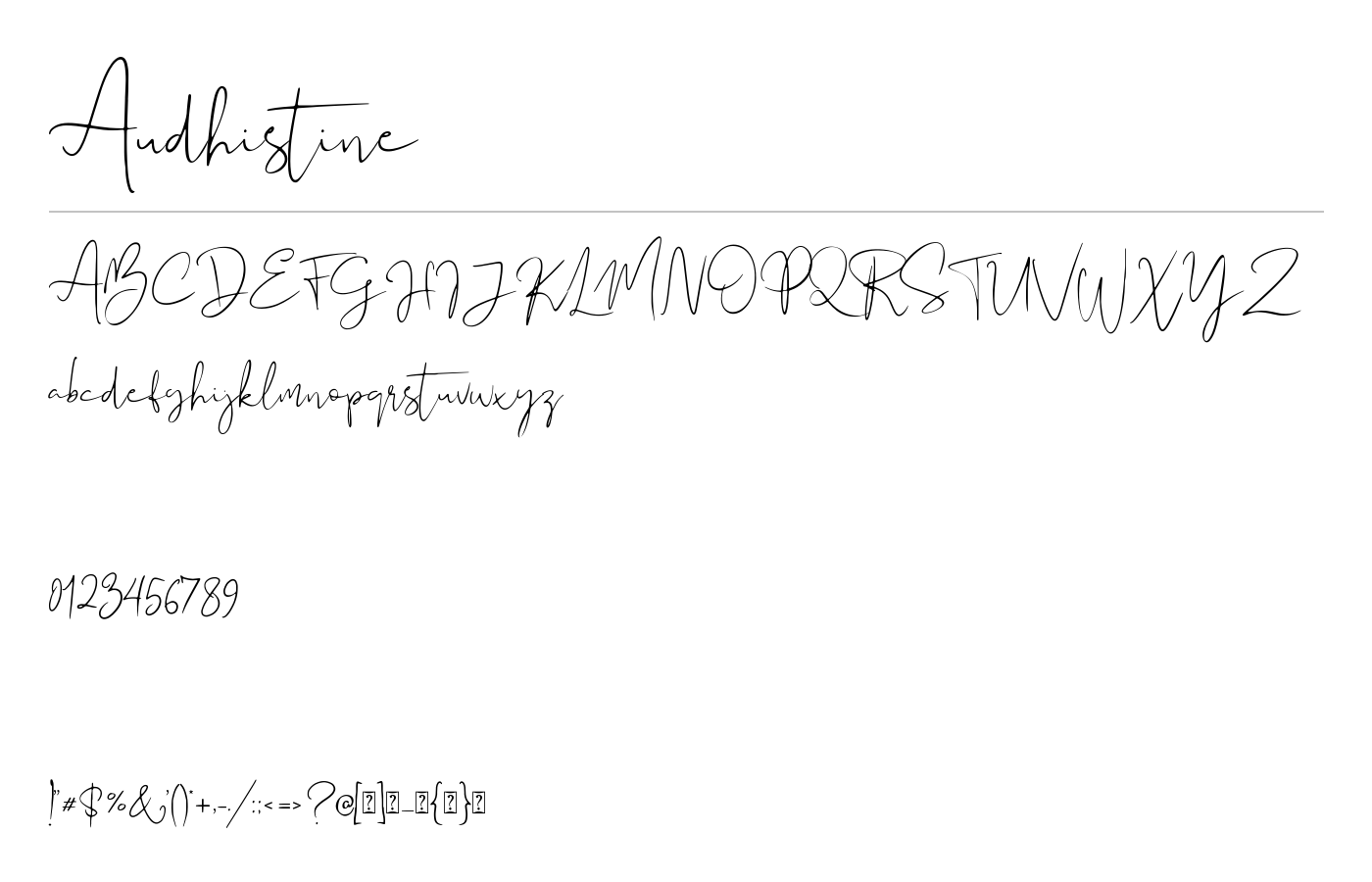
Audhistine is a delicate, modern script font characterized by its thin, flowing strokes and elegant, handwritten style. Its airy, natural letterforms convey a sense of sophistication and warmth, making it ideal for personal branding, invitations, and creative projects seeking a graceful, artistic touch. This font works best in designs that benefit from a refined yet casual feel, such as lifestyle blogs, fashion logos, and elegant packaging.
Audhistine Font
About Audhistine Font
| Font family | Audhistine Font |
| Designer | Lettersiro 2018 |